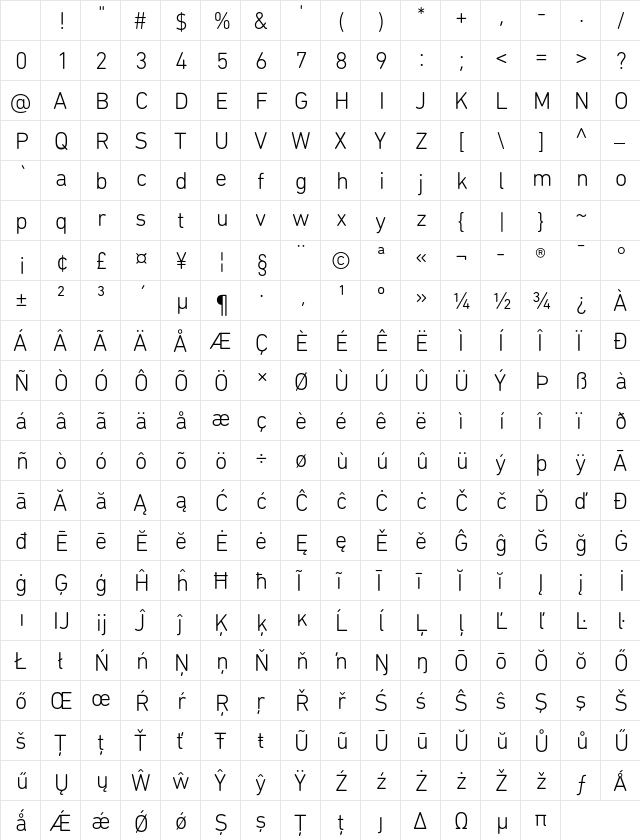
Complete DIN Next Rounded LT Pro Light glyph index. Displaying only characters natively supported by DIN Next Rounded LT Pro Light font.
DIN Next Rounded LT Pro softens its letterforms with rounded terminals, giving it an approachable, friendly quality that works well in consumer-facing and digital contexts. Its slender proportions lend an understated elegance to any composition.
Font Pairing: Pairs well with a rounded or humanist sans for body copy, maintaining the friendly tone without relying on DIN Next Rounded LT Pro to carry extended reading.
Pro Tip: Use DIN Next Rounded LT Pro for UI elements, app interfaces, and anywhere a friendly, approachable tone needs to be maintained without sacrificing clarity.